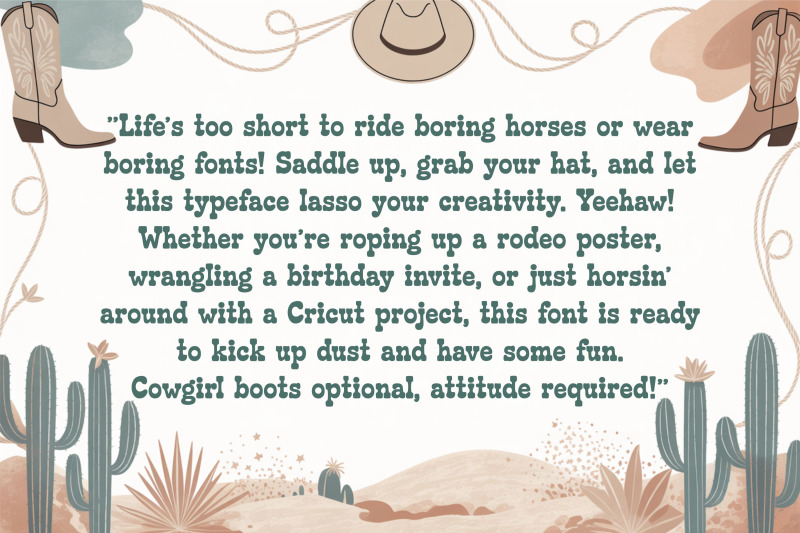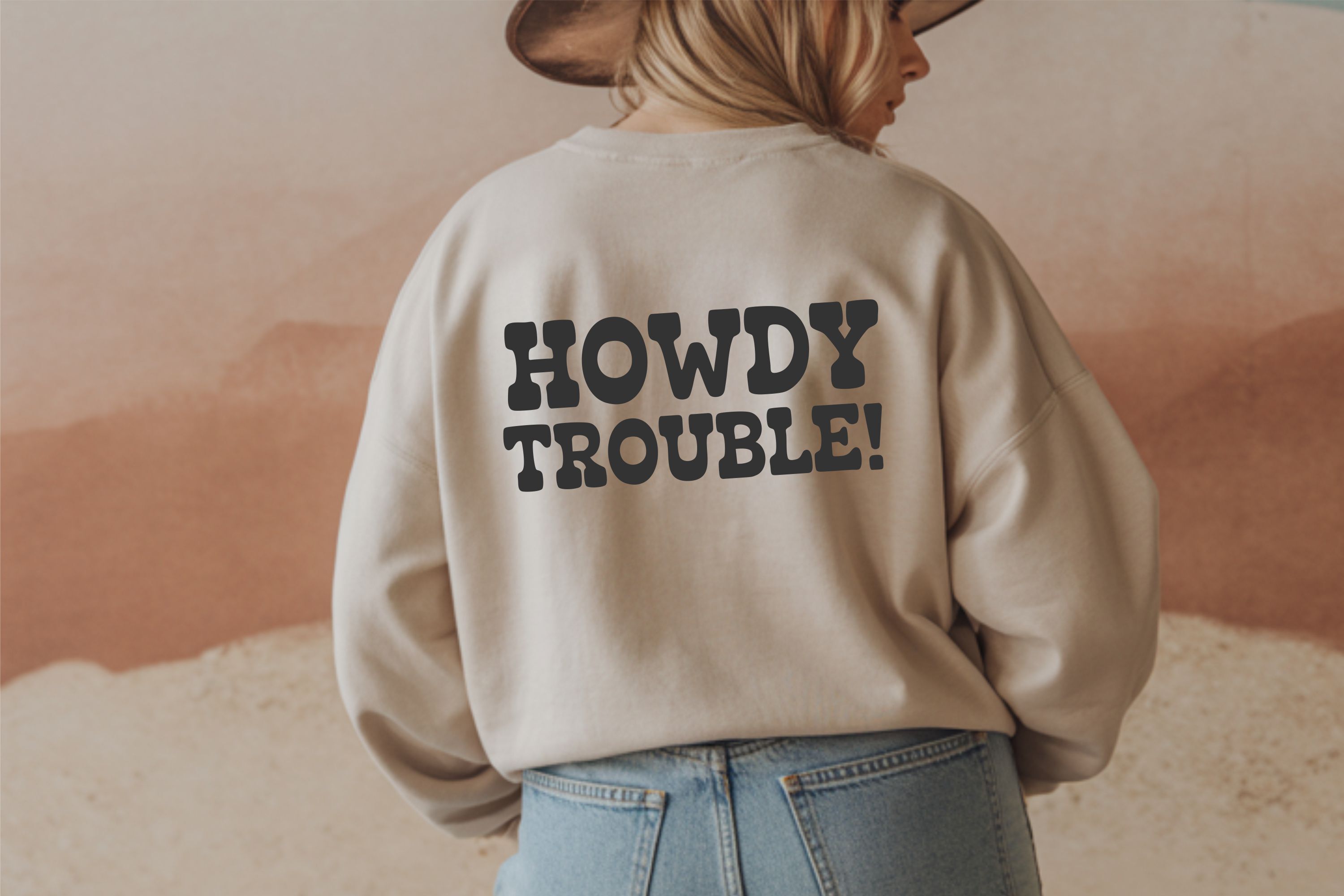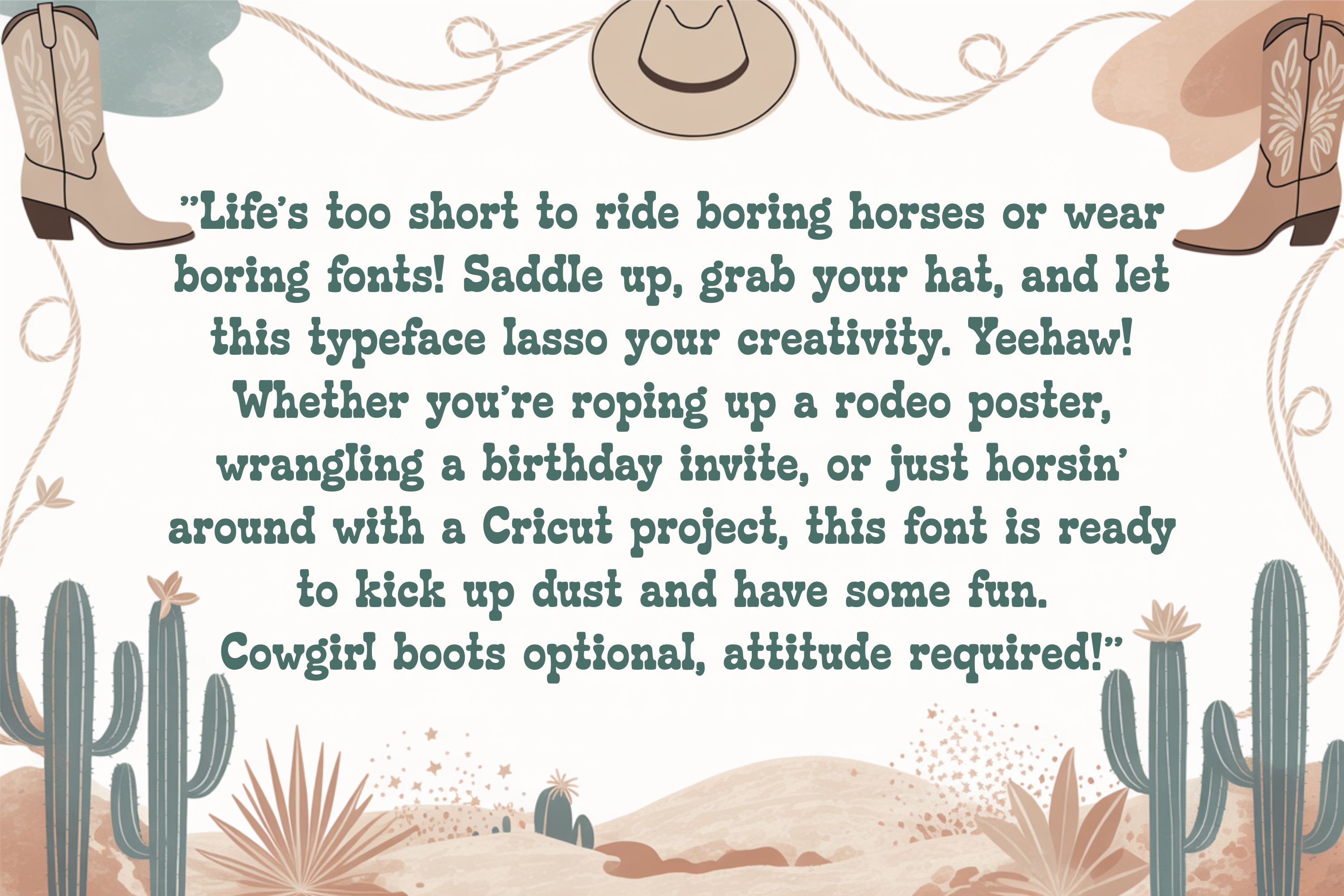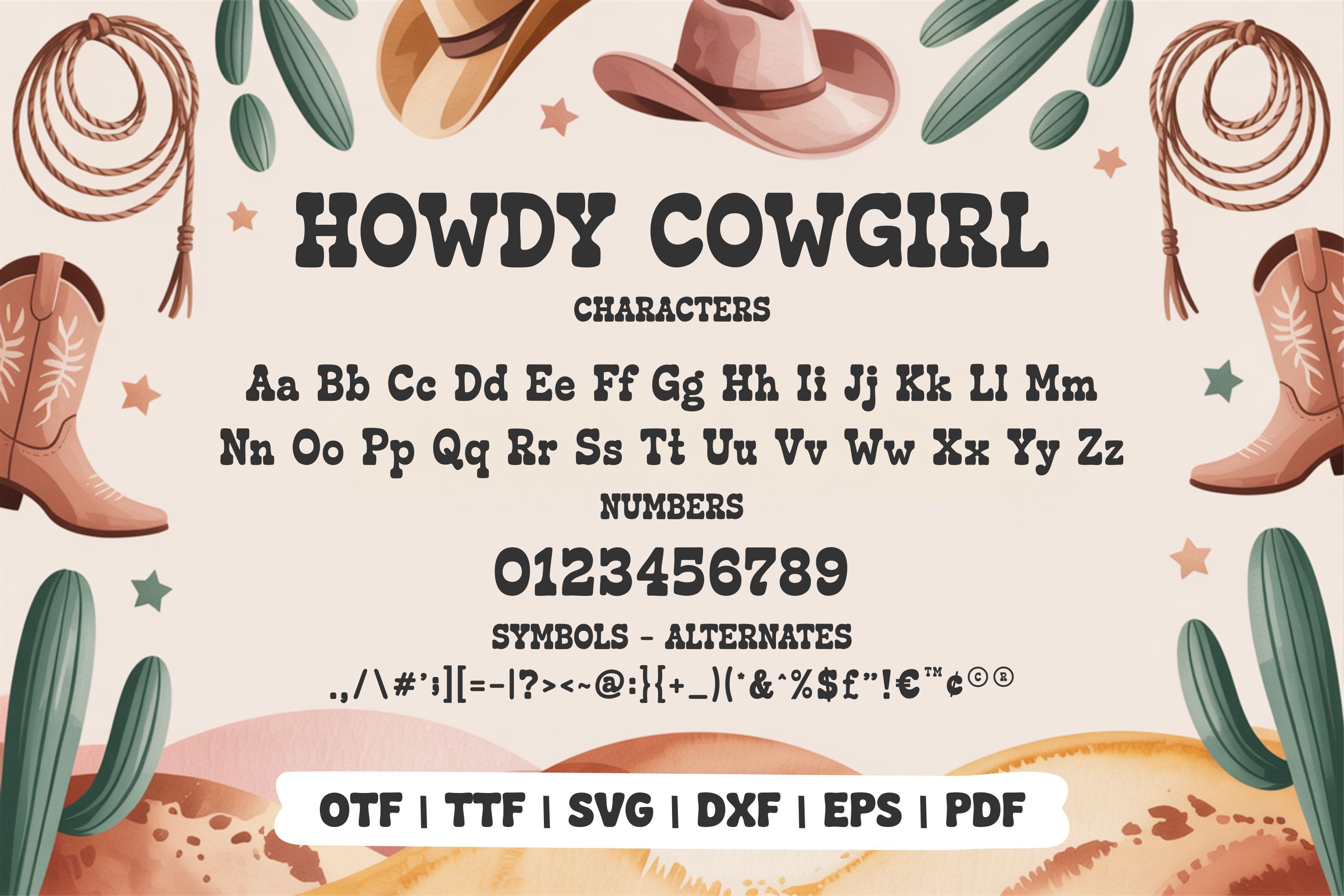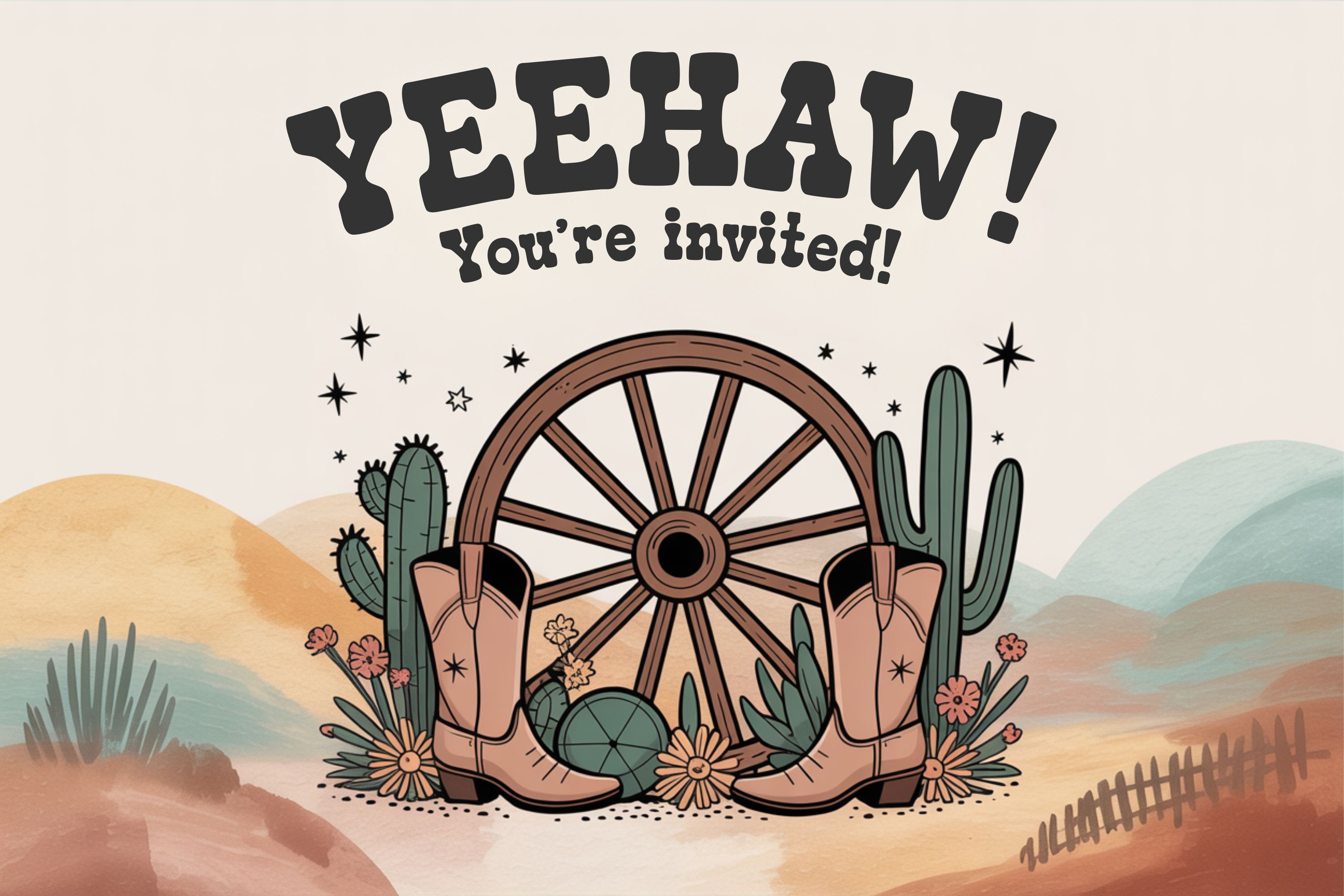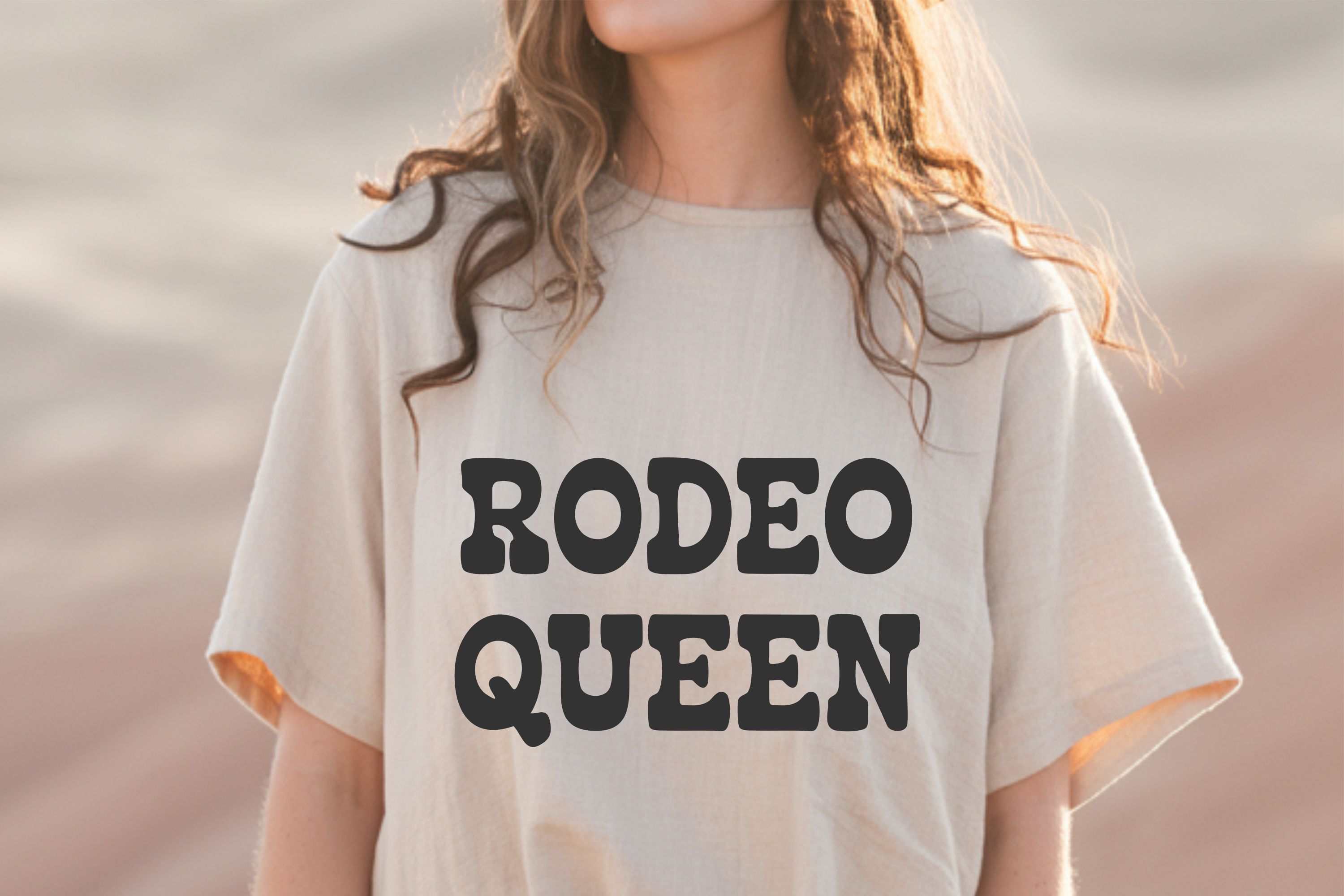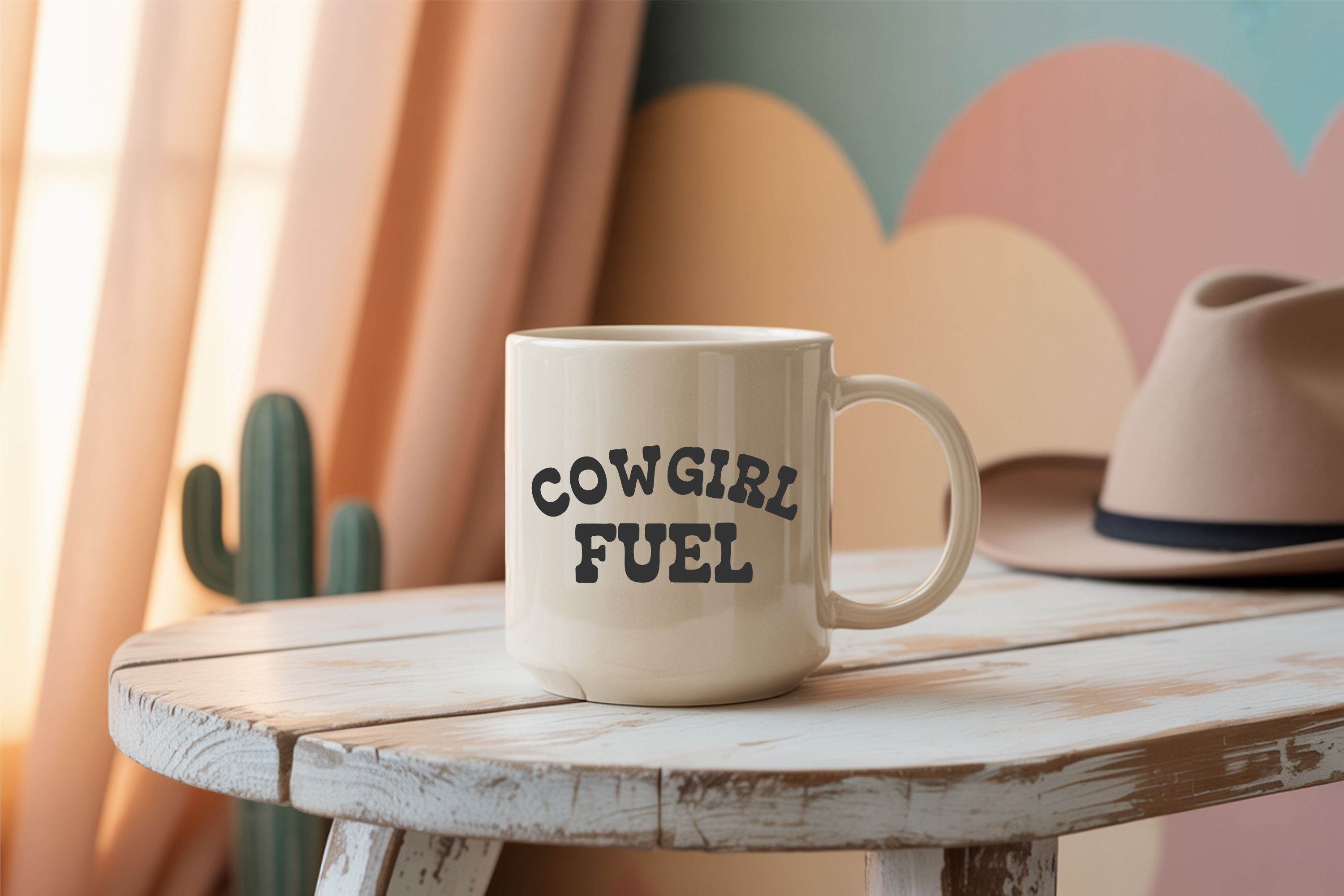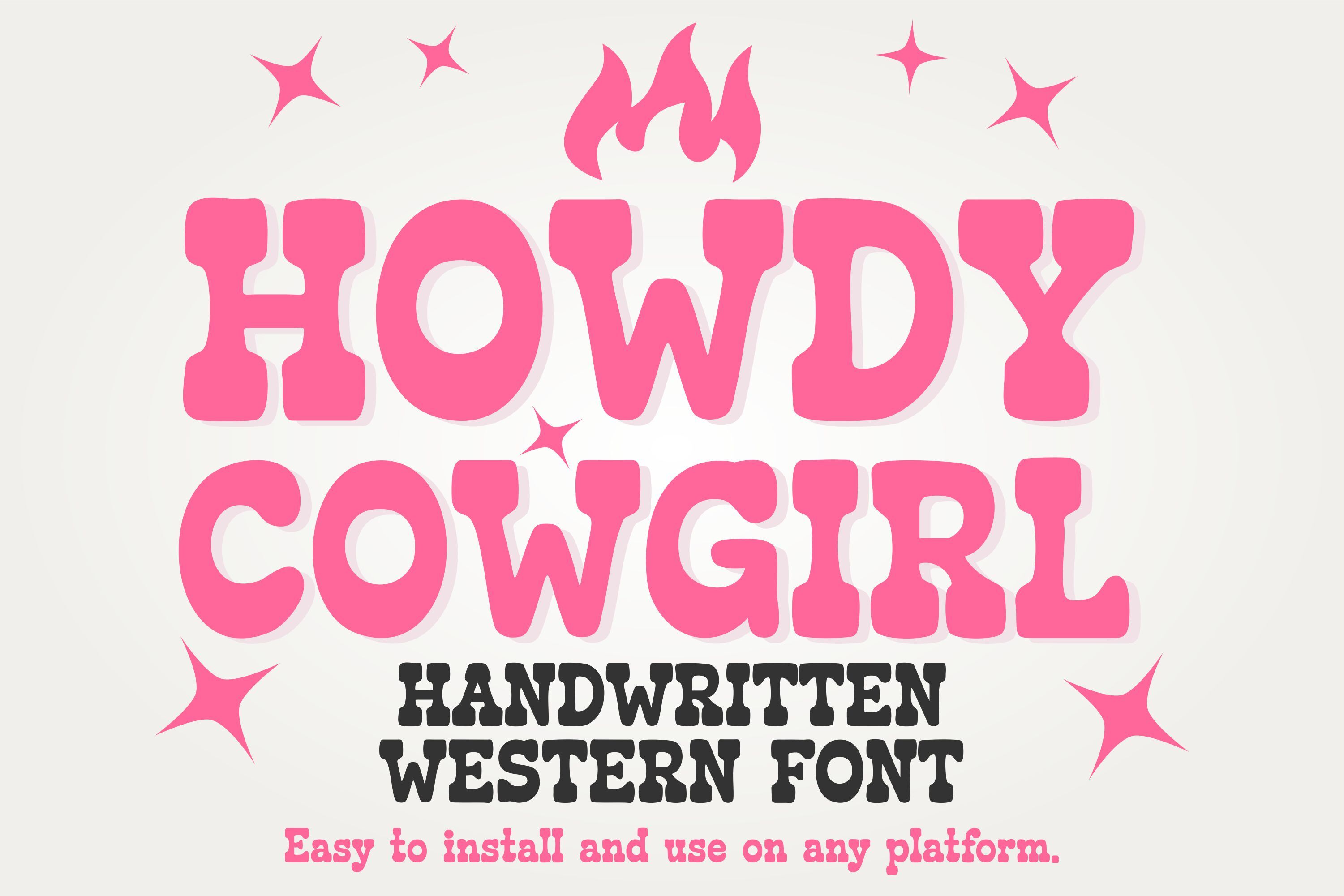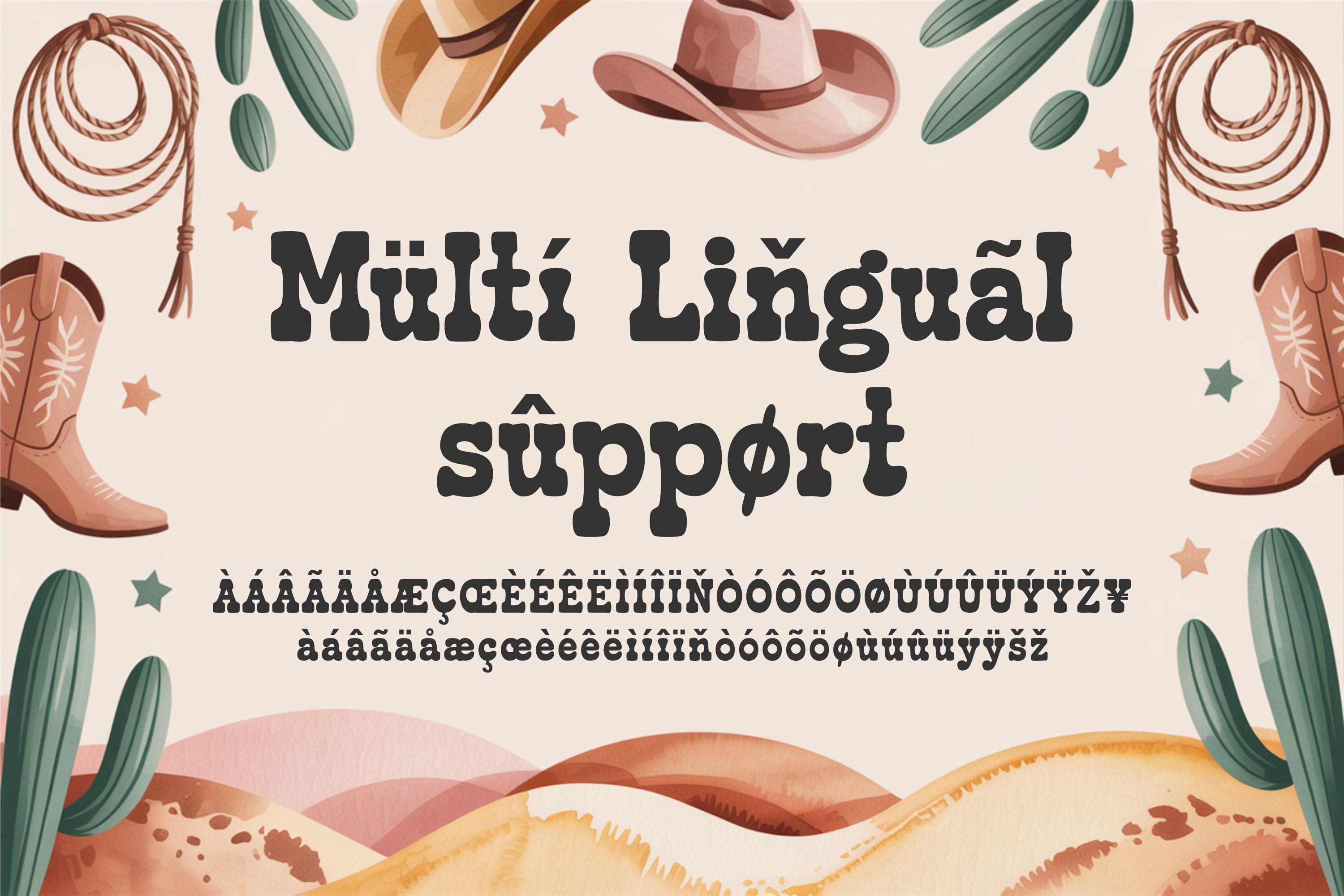
Bring the spirit of the Wild West to your projects with Howdy Cowgirl – a bold western-inspired font designed to add rustic charm and retro flair. With chunky serifs, smooth curves, and a playful country aesthetic, this font is perfect for projects that need a touch of cowgirl style.
Use Howdy Cowgirl to create rodeo invitations, country party décor, farmhouse kitchen signs, western t-shirts, printable quotes, mug designs, and more. Its versatile style works beautifully for vinyl cutting, sublimation, and digital art projects.
This font includes uppercase and lowercase letters, numbers, punctuation, and multilingual support — giving you the flexibility to design in multiple languages. The clean letterforms ensure smooth cutting on Cricut and Silhouette machines, making it ideal for DIY crafters and professional designers alike.
Whether you're designing for a rustic wedding, a barn dance, or a kids' cowgirl party, this font is ready to add country charm to your creations. The easy-to-install files work with programs such as Cricut Design Space, Silhouette Studio, Canva, Procreate, Photoshop, Illustrator, and more.
Kick up some dust and let your creativity run wild with Howdy Cowgirl!